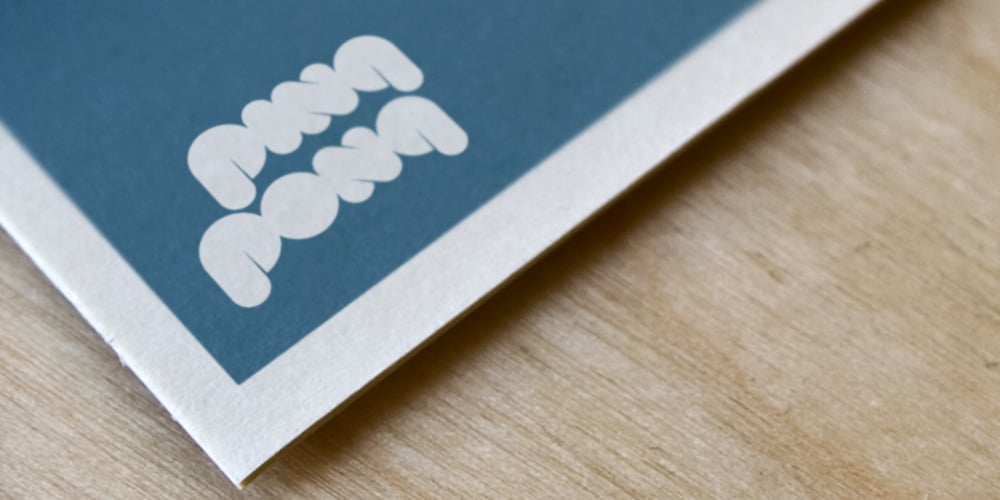
Bolda Display
Bolda Display Font Family was designed by Morten Iveland and published by The Infamous Foundry. Bolda Display contains 1 styles and family package options. Bolda Display is a a-z lowercase display font in two styles; regular and outline. Lowercase is regular and uppercase is outline. Inspired by the 1970’s tennis, dart and ping pong fashion. Perfect for headlines, logos and everything above the body.